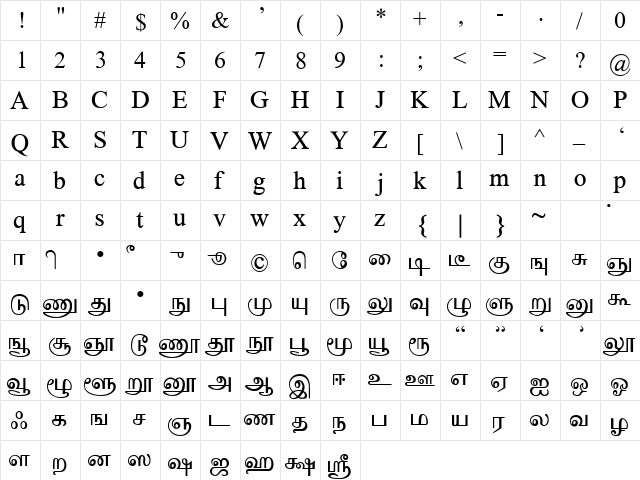
TABThunaivan Normal Font Preview
TABThunaivan Normal
Design Context for TABThunaivan Typeface
TABThunaivan takes a measured approach to typography — its balanced proportions and neutral character make it a reliable workhorse for both digital and print work.